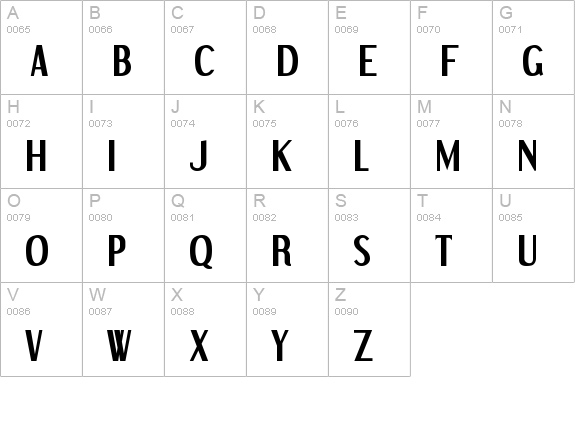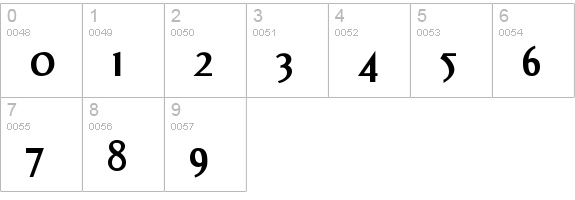
Dream Orphans Bold Font Details
Dream Orphans Bold is a strong, high-contrast variant in the Dream typeface family \xE2\x80\x94 well suited to headlines, attention-grabbing titles, and strong calls-to-action.
Dream Orphans Bold is a striking and bold font that exudes elegance and sophistication. With its clean lines and strong presence, this font is perfect for making a statement in your designs. Whether you are creating posters, invitations, or logos, Dream Orphans Bold will surely catch the eye of your audience. What sets this font apart is not just its boldness, but also its versatility. It can be used for both headings and body text, making it a great choice for various design projects. The classic yet modern look of Dream Orphans Bold ensures that your message will be conveyed effectively and stylishly. And the best part? Dream Orphans Bold is completely free to download at FontsMarket.com. So you can elevate your designs without breaking the bank. Don't miss out on this fantastic opportunity to enhance your typography game with Dream Orphans Bold!